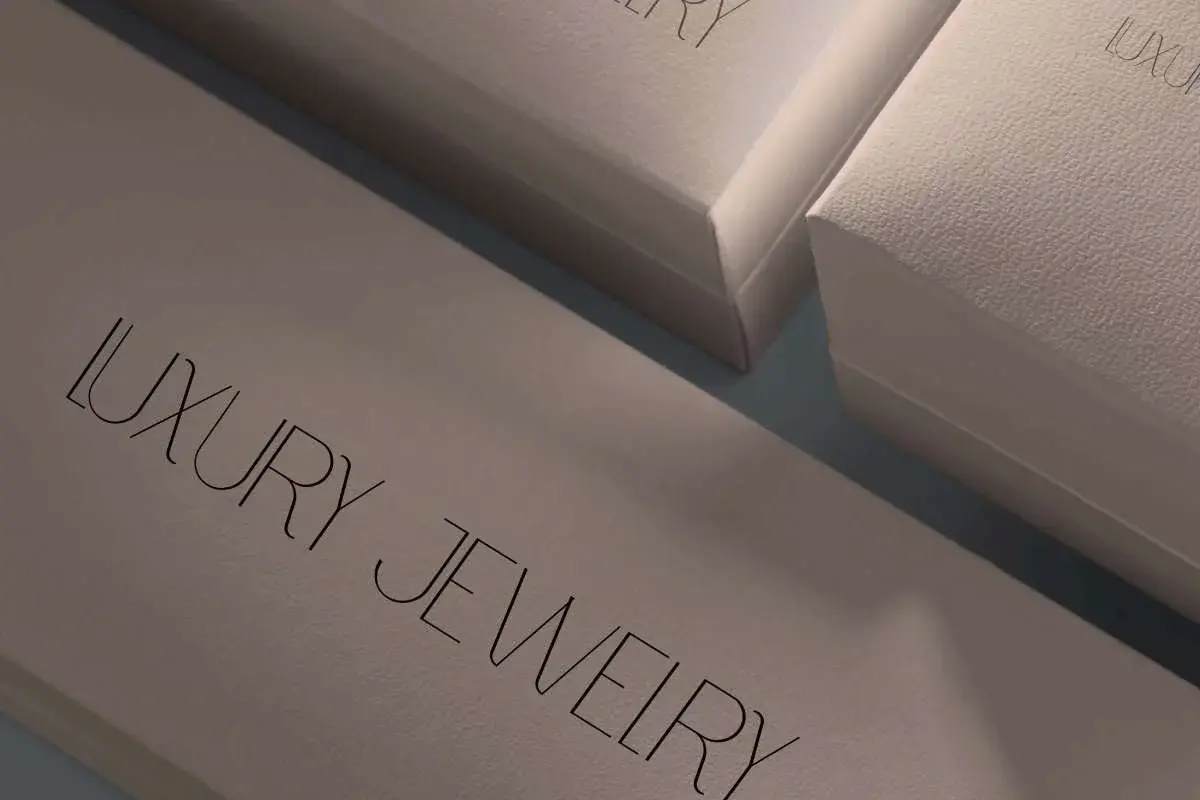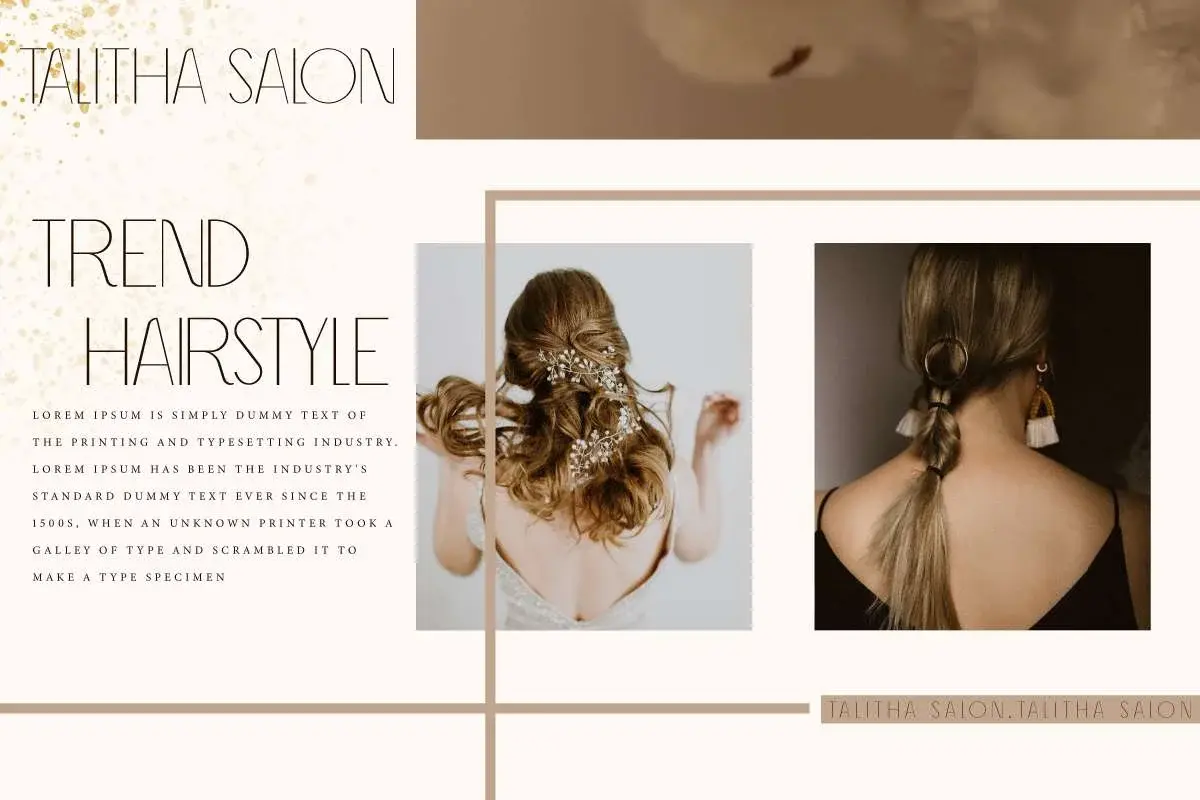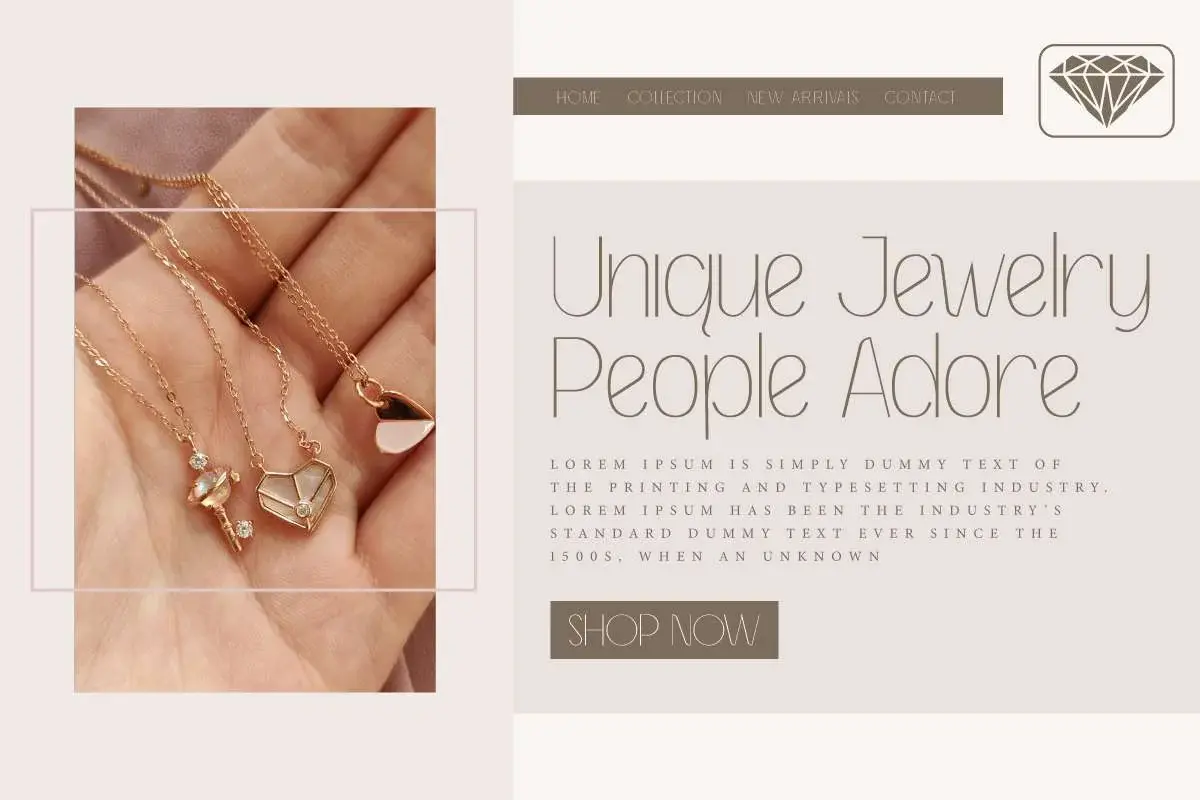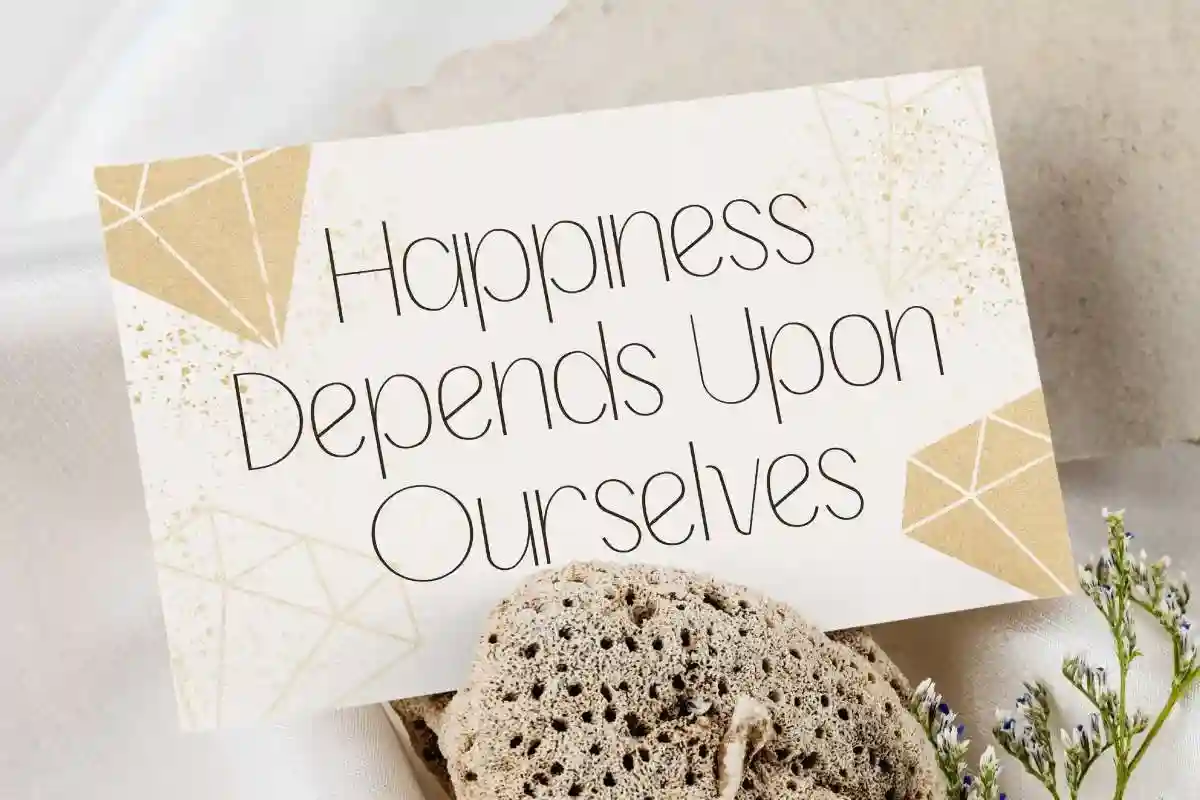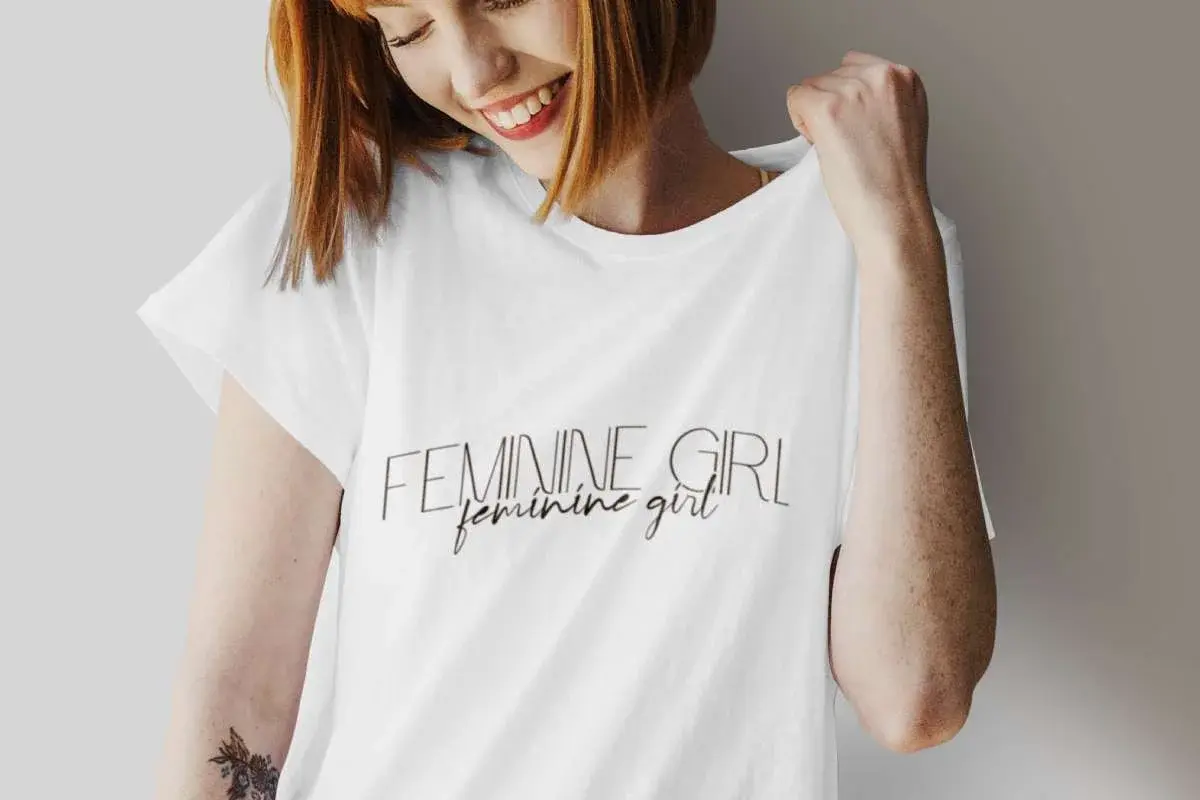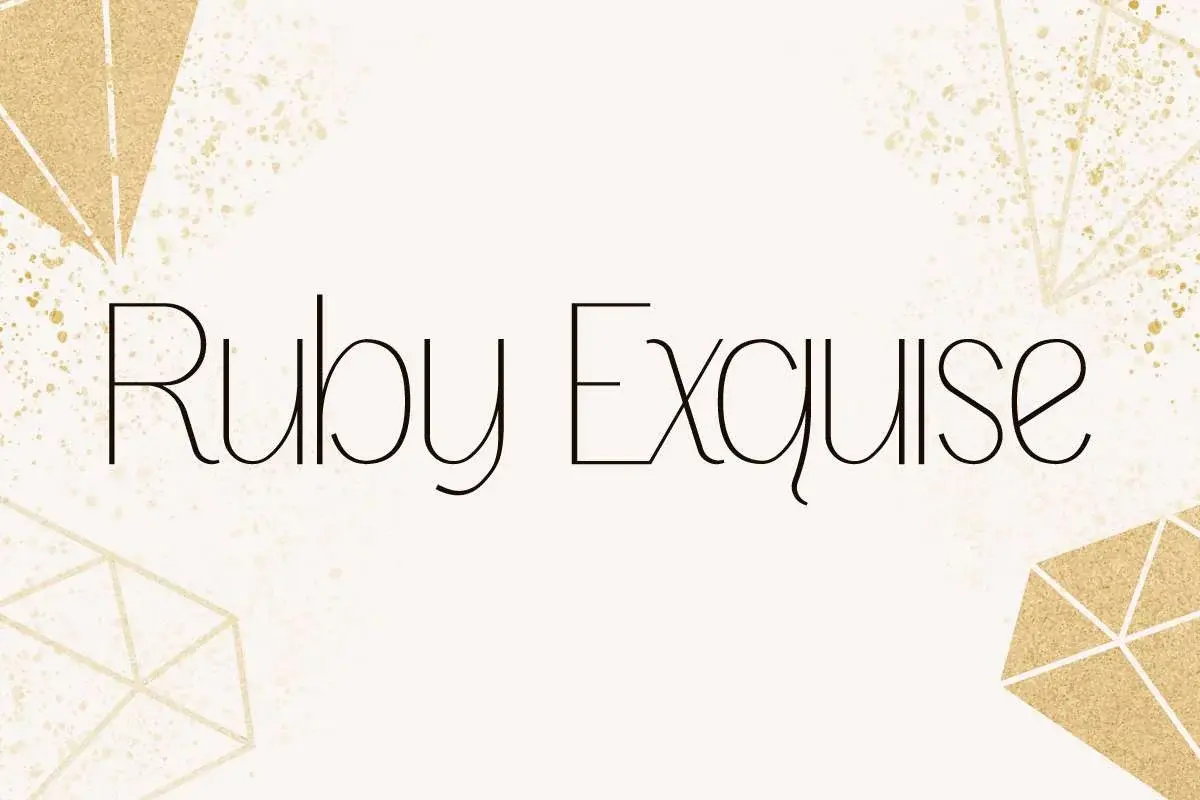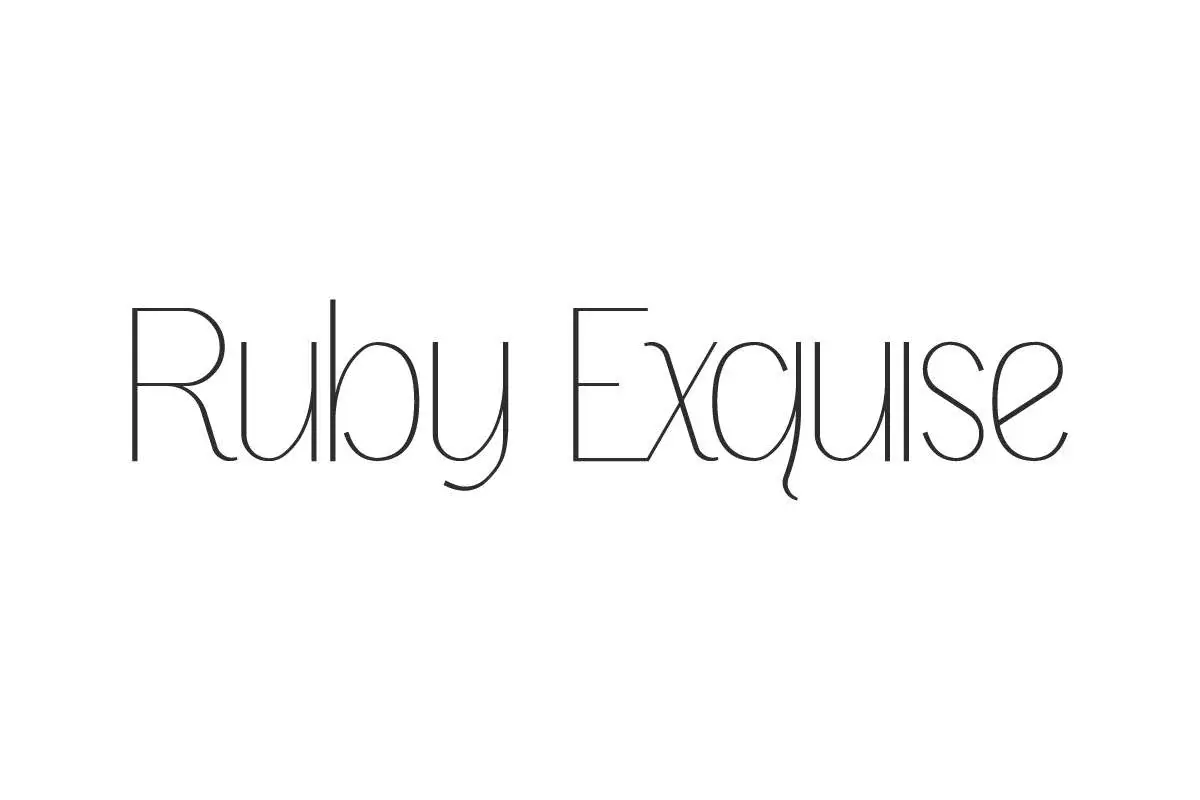
Ruby Exquise Font is a chic light weight sans serif font with a modern minimal look. Ready to provide a real elegant charm in the brand identity, etc.
Ruby Exquise Font is a light weight sans serif font with a modern minimal look. This is awesome so it will boost your business engagement, such as architect, botany, bridal boutique, café, cosmetic, craftsman, event organizer, fashion designer, florist, furniture, interior design, jewelry, photography, printing, publishing, real estate, restaurant, skincare, spa salon, wedding, writer, etc.
Ruby Exquise Font includes full set of Uppercase and Lowercase Basic Characters, Number, Punctuation, and Symbol. It looks so light that it brings a sophisticated feel to your design, such as apps, billboard, blogs, body text, brand logo, brochure, cover, flyer, header, invitation, label, mockup design, packaging design, poster, quote, screen print, stationery, sticker, title, watermark, website, and many more.